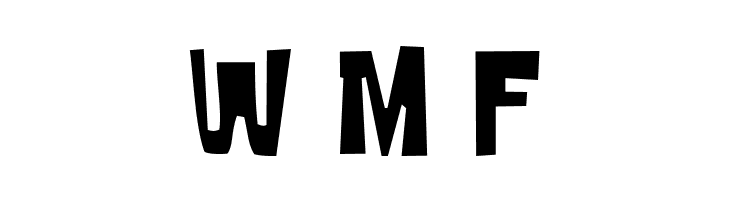
( Fonts by Emerald City Fontwerks )
A bold, grunge-style font with a hand-drawn, rebellious aesthetic.
( Fonts by Mr Fisk - Mike Larsson - fontorama.net )
A decorative, distressed font with jagged, graffiti-like uppercase letters.
( Fonts by Astigmatic One Eye Typographic Institute - Brian J. Bonislawsky - astigmatic.com )
Hand-drawn font with unique cat face illustrations for each character.
( Fonts by Astigmatic One Eye Typographic Institute - Brian J. Bonislawsky - astigmatic.com )
A decorative symbol and shape dingbat set.
( Fonts by Klaus Johansen - www.listemageren.dK )
Zodiac symbols in a decorative style, not a traditional font.
( Fonts by Heath Kane OFF SITE )
A rugged, distressed font with a bold, chalk-like appearance.
( Fonts by RudynFluffy )
A playful, 3D-effect font with bold outlines and a lively tilt.
( Fonts by Renn Crump - http://moorstation.org/typoasis/designers/renncrump/ )
A decorative font with Celtic knot designs in uppercase letters and traditional serif lowercase.
( Fonts by Patrick Broderick )
A playful, quirky handwritten font with irregular strokes and a casual style.
( Fonts by Astigmatic One Eye Typographic Institute - Brian J. Bonislawsky - astigmatic.com )
Hand-drawn cat face illustrations used as letterforms.
( l )
A bold, graffiti-inspired font with an edgy, hand-drawn look.
( Digital Empires - www.digitalempires.com )
A bold, industrial font with a bolted, mechanical design.
( George Williams - web.archive.org/web/20051223080638/bibliofile.mc.duke.edu/gww/fonts/fonts.html )
A playful, handwritten font with a whimsical and informal style.
( George Williams - web.archive.org/web/20051223080638/bibliofile.mc.duke.edu/gww/fonts/fonts.html )
A light, elegant italic font with a modern and sophisticated style.